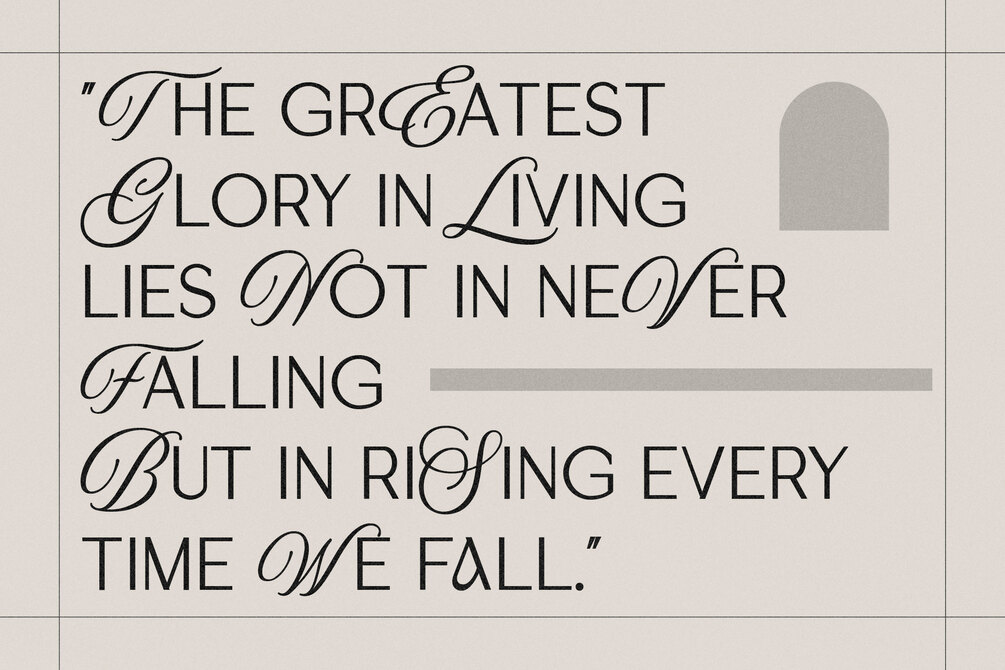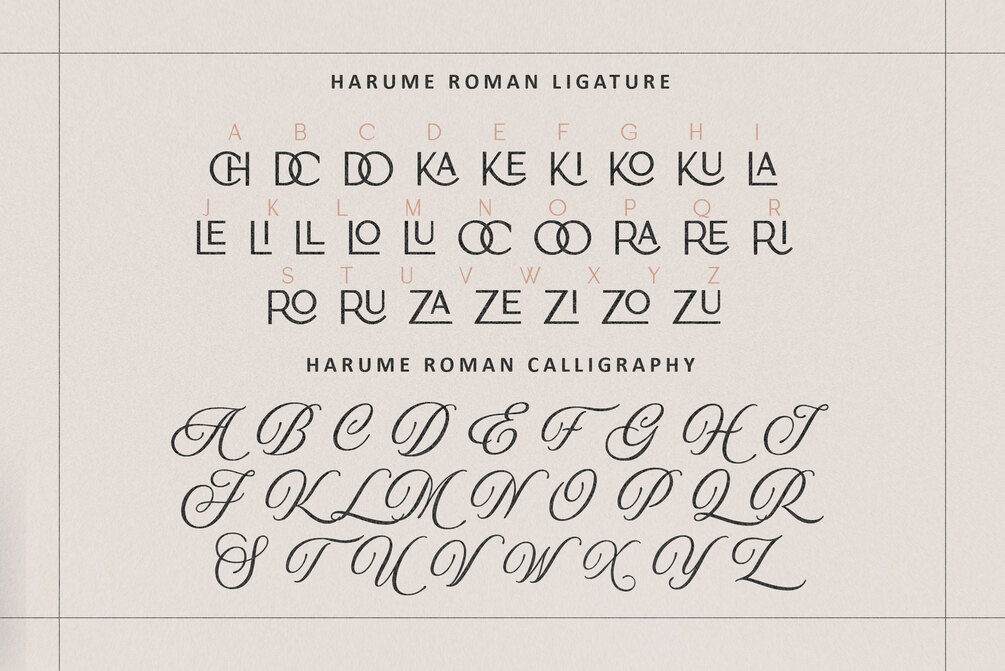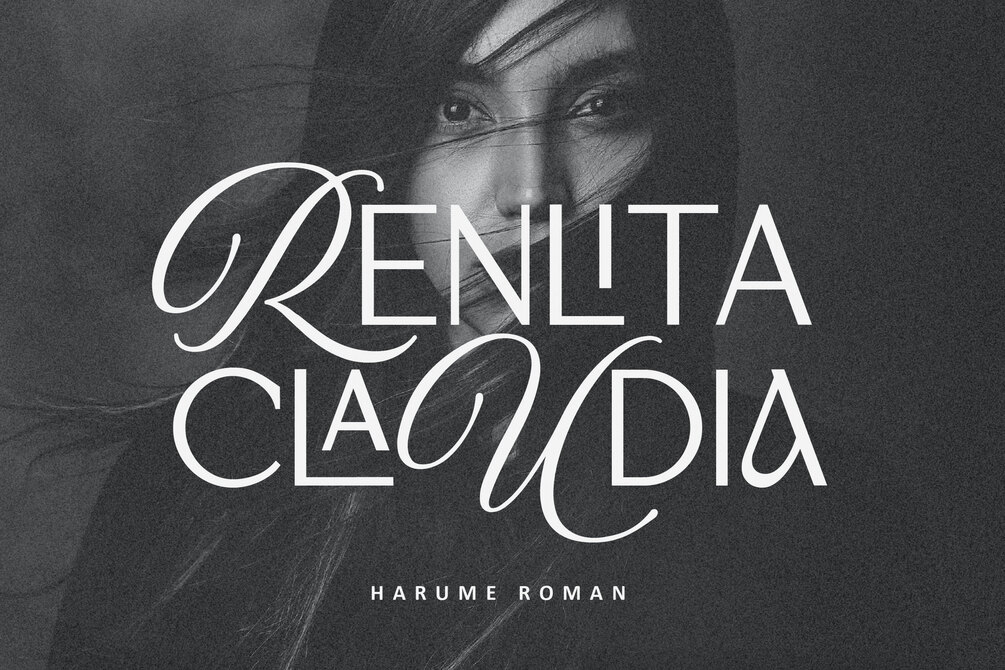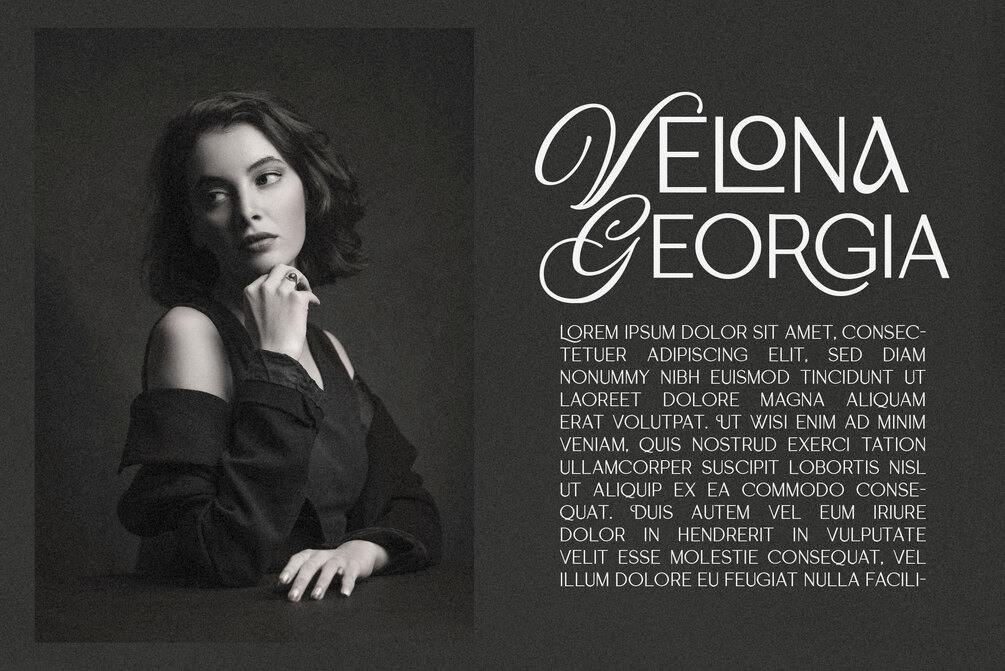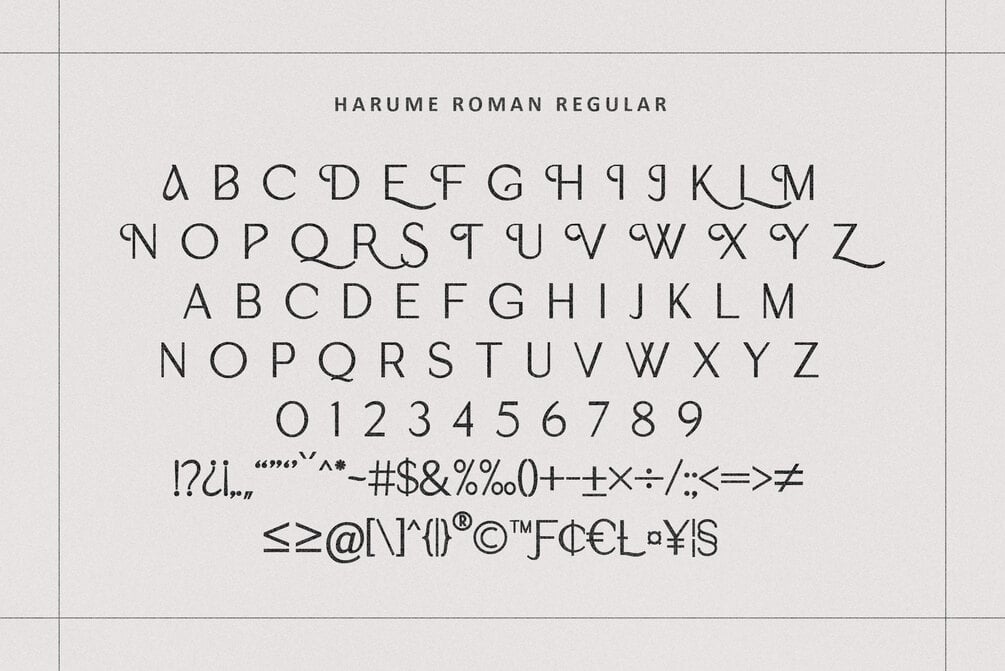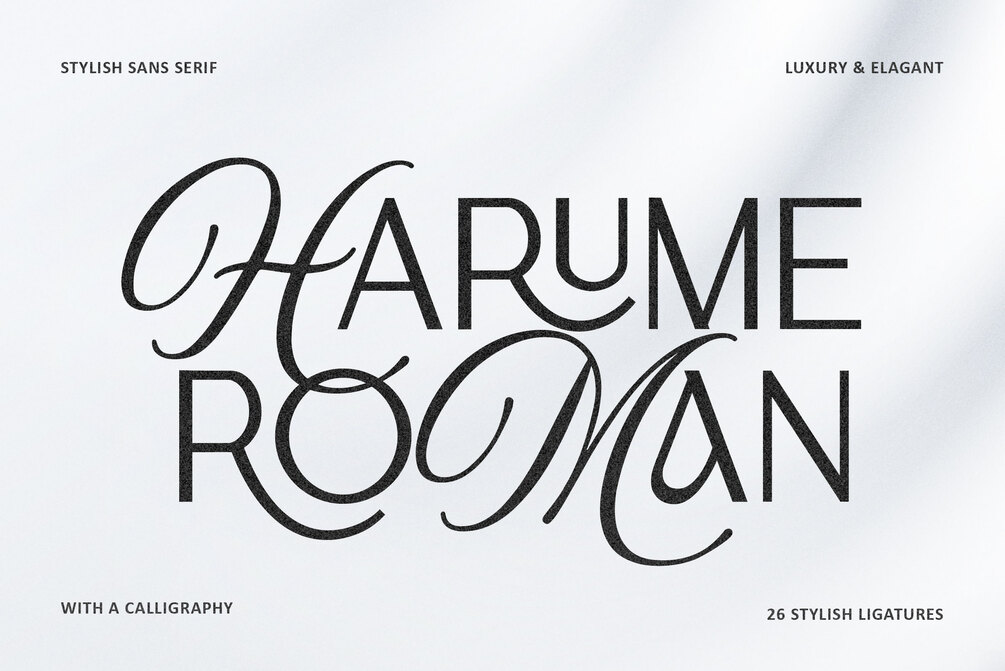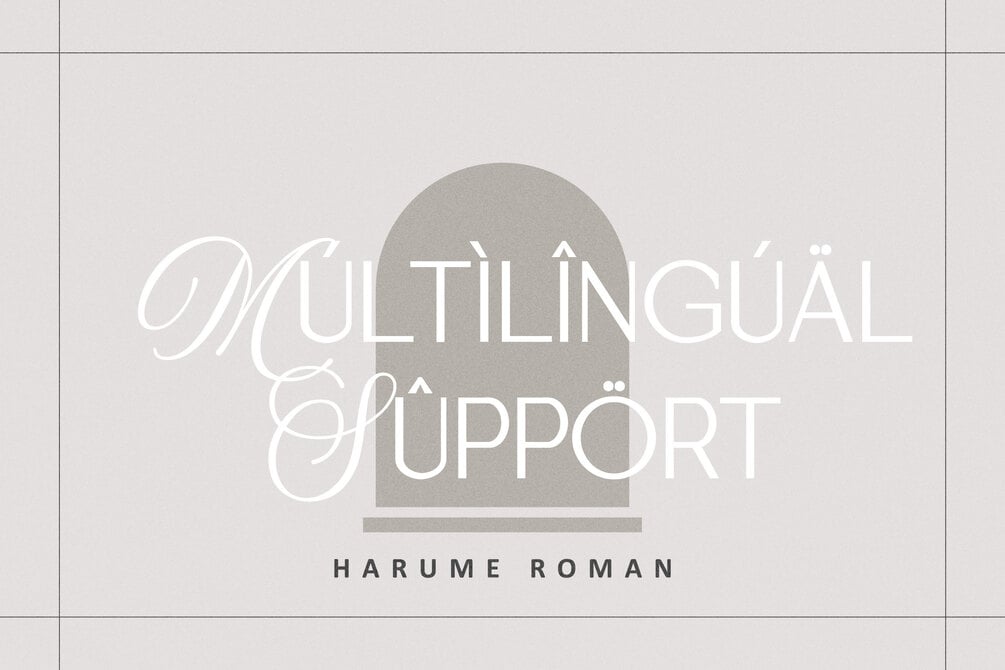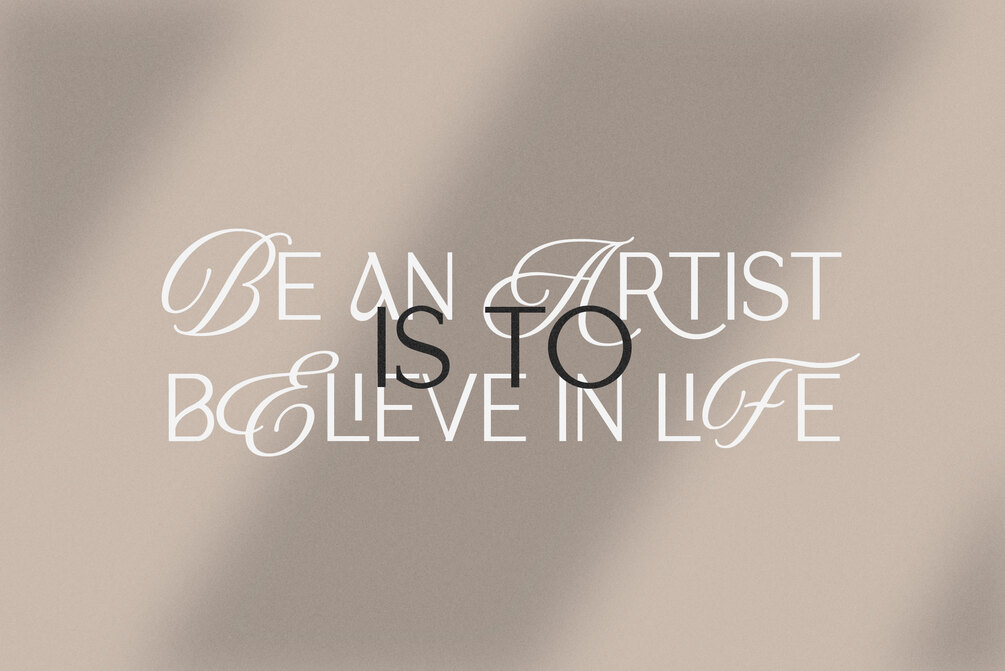
Harume Roman – Stylish & Elegant Font Duo
Harume Roman is a stylish sans serif typeface that blends modern minimalism with elegant calligraphic touches. Its clean, geometric letterforms are enhanced by graceful curves and flowing ligatures, creating a refined balance between simplicity and sophistication. Designed with luxury and versatility in mind, this font is perfect for branding, editorial design, fashion projects, invitations, and high-end packaging. Featuring 26 unique ligatures, Harume Roman offers endless creative possibilities for designers seeking a timeless yet contemporary aesthetic.